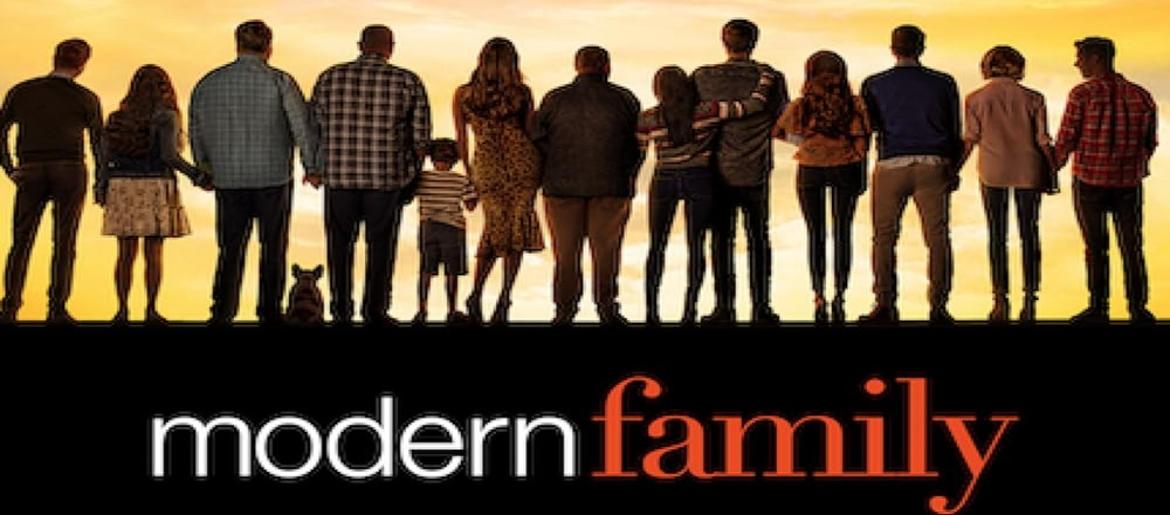
Modern Family Font
Modern Family Font perfectly captures the warm, cheerful energy of the hit comedy series Modern Family. Its rounded, friendly letterforms reflect the show’s playful and approachable tone, making viewers instantly feel welcome.
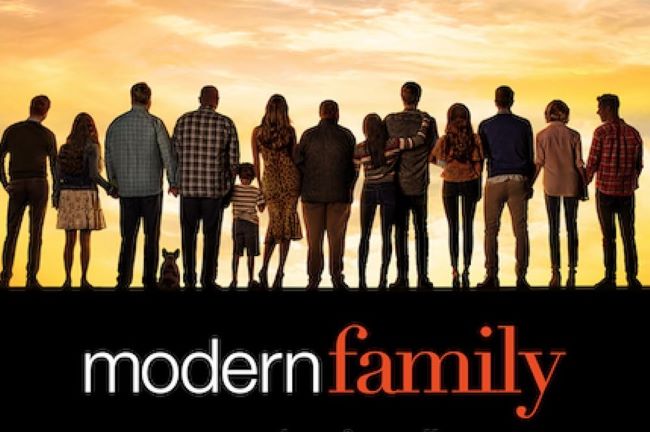
The typography’s playful curves resemble handwriting and perfectly complement the show’s heartwarming humor and everyday family chaos. In the logo, “Modern” is close to Neue Helvetica 45 Light, while “Family” resembles Didot Roman. Designers and fans can also explore more free fonts for personal and creative projects.
About Modern Family